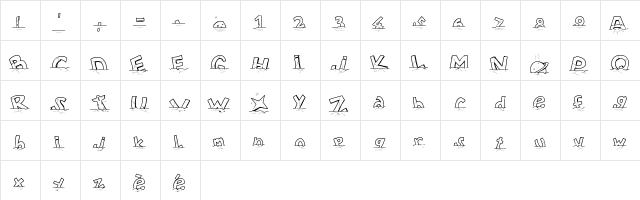
PWWORLDSEND2112 Medium
Design Context for PWWORLDSEND2112 Typeface
PWWORLDSEND2112 is a composed and adaptable typeface that performs quietly and consistently across a wide range of design contexts.